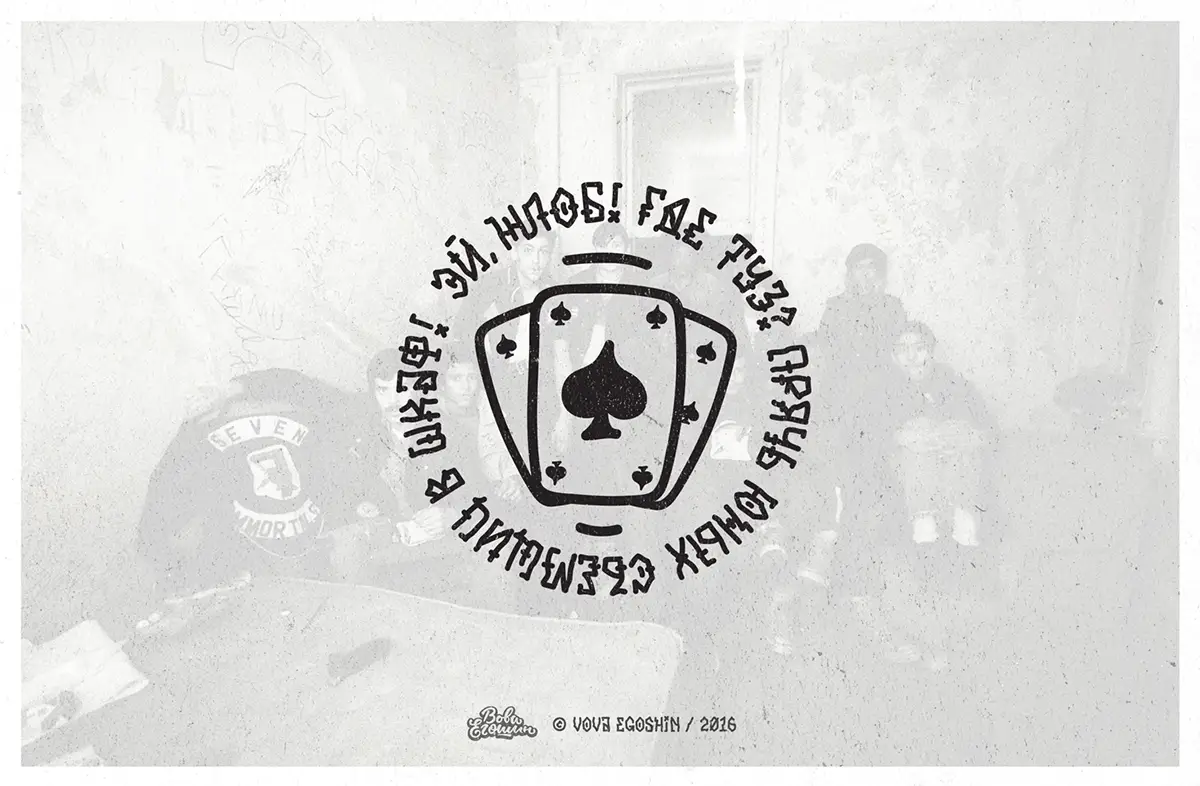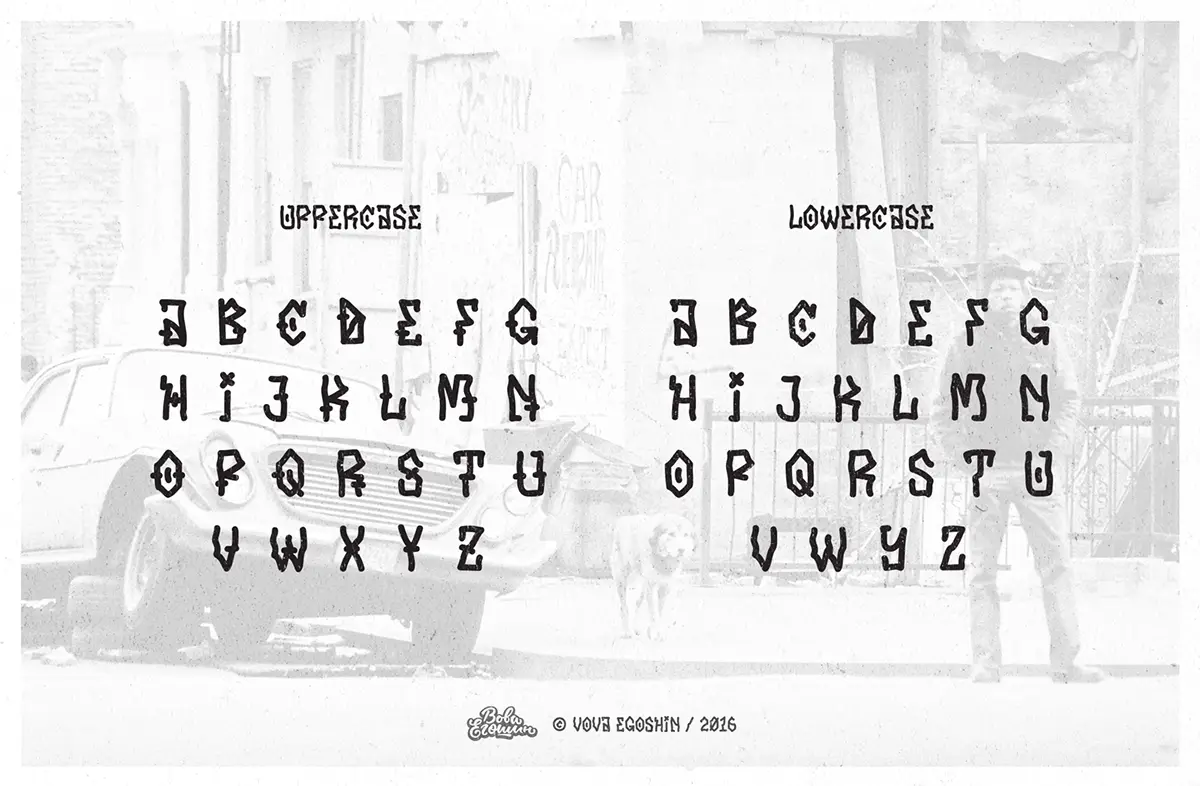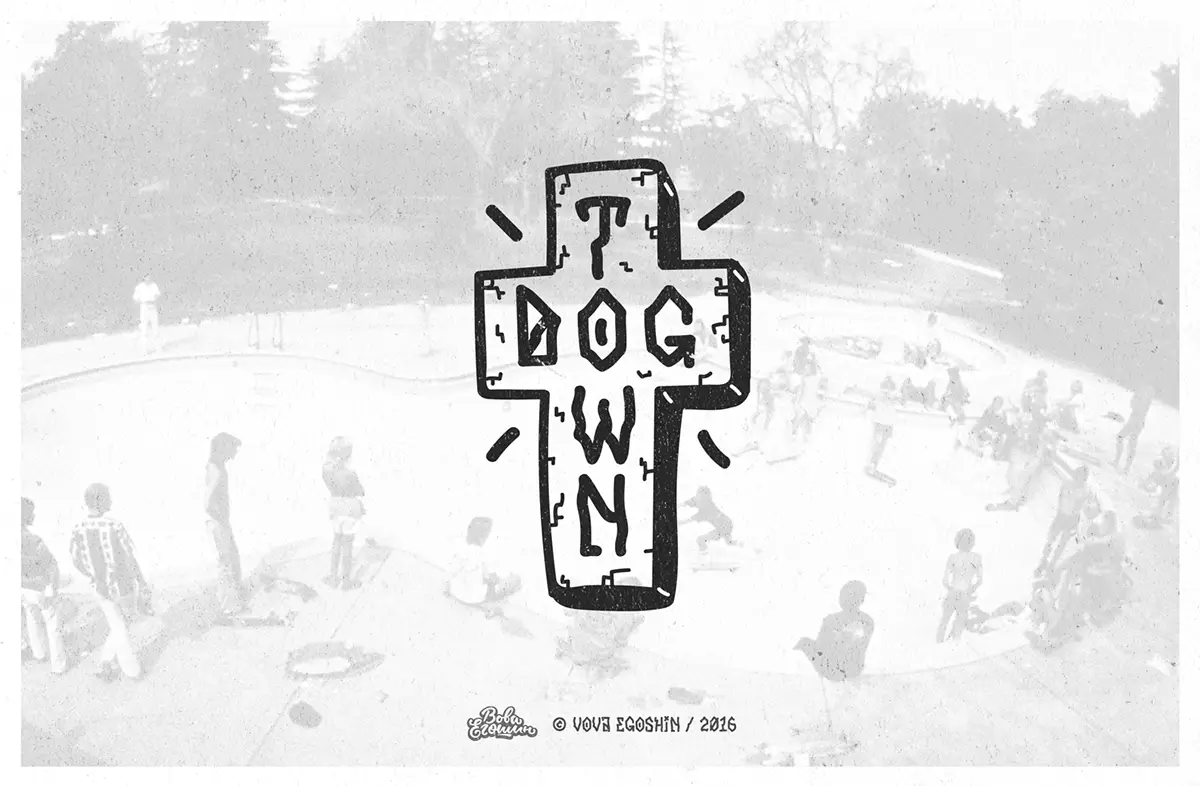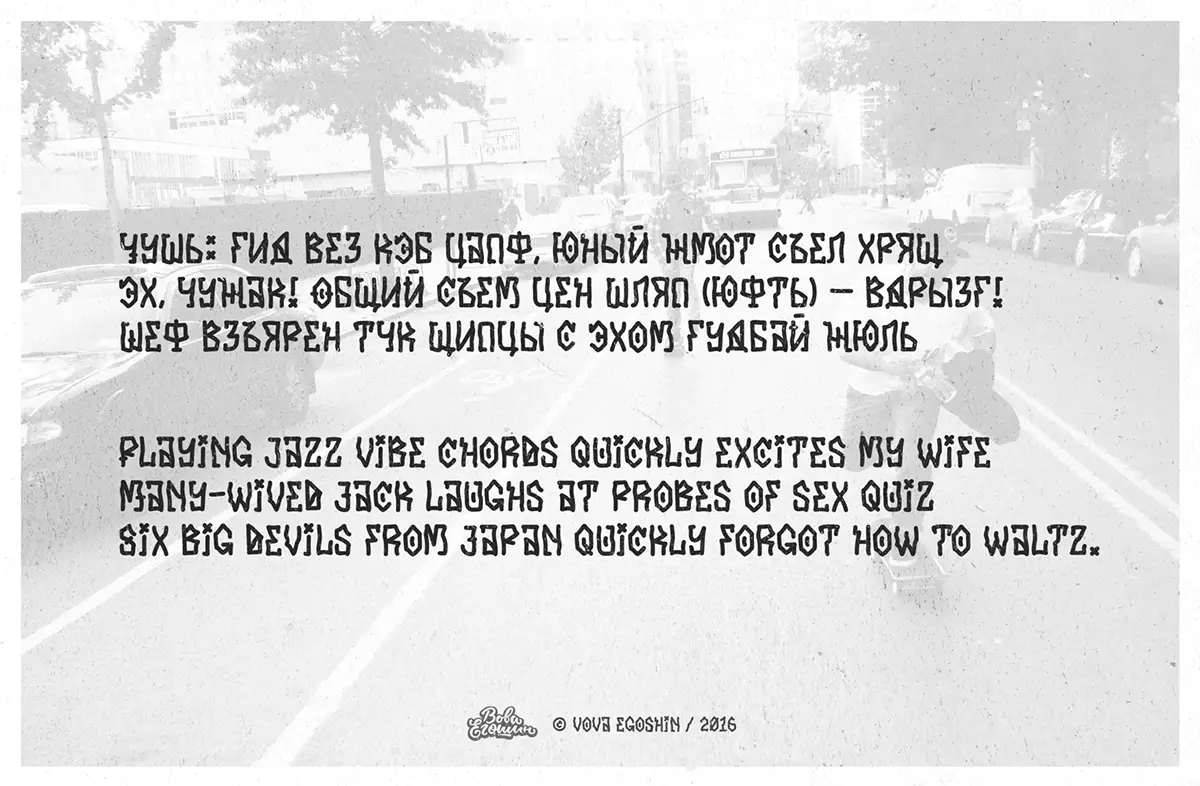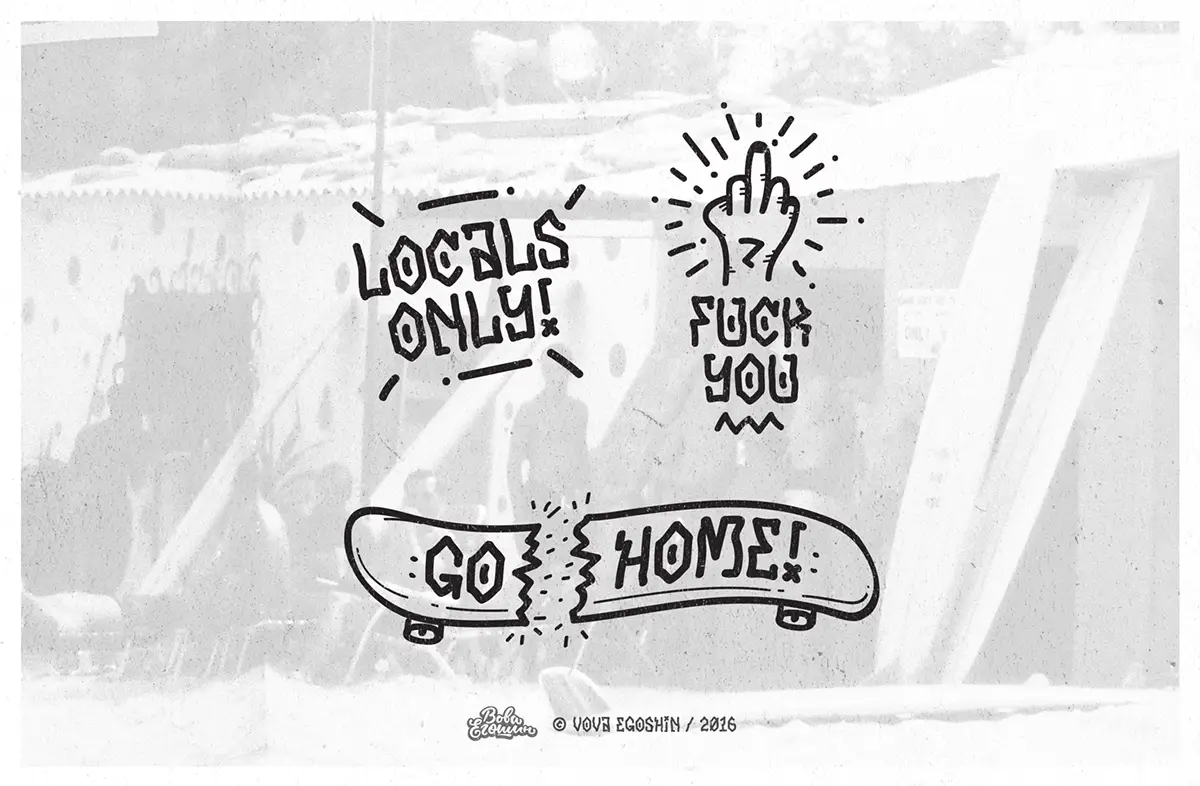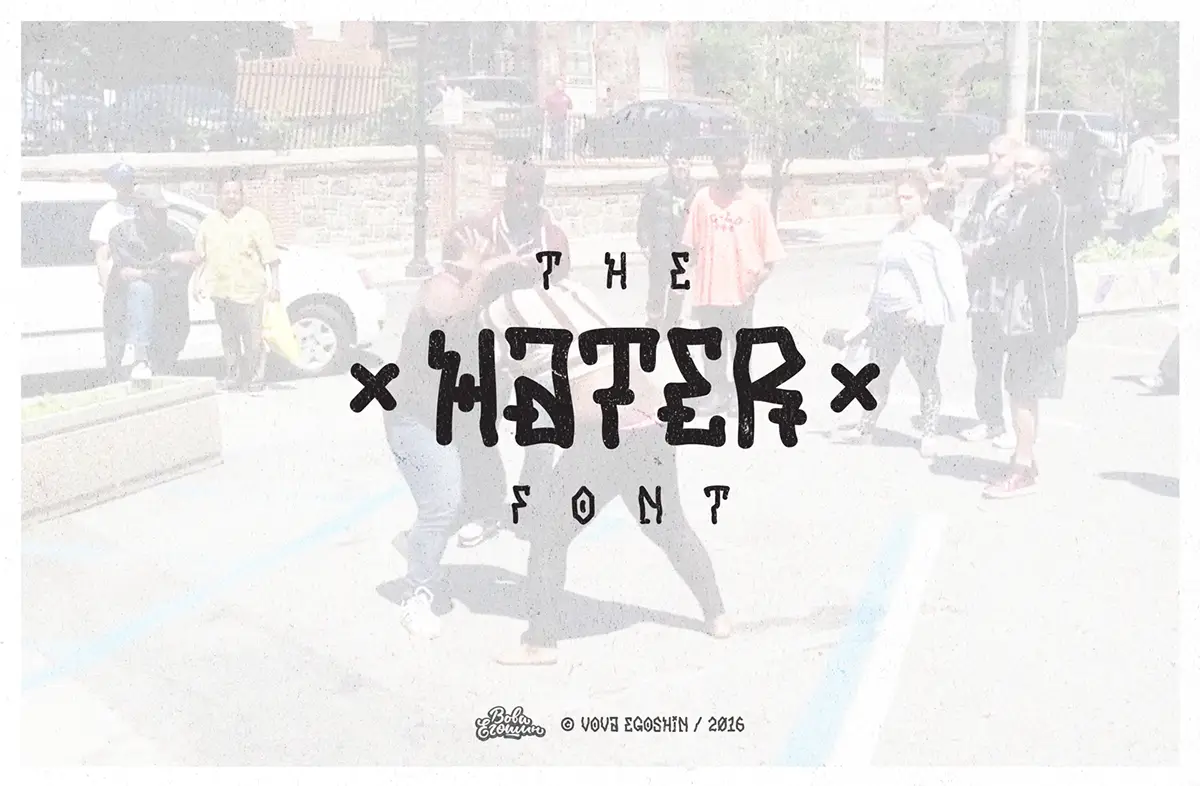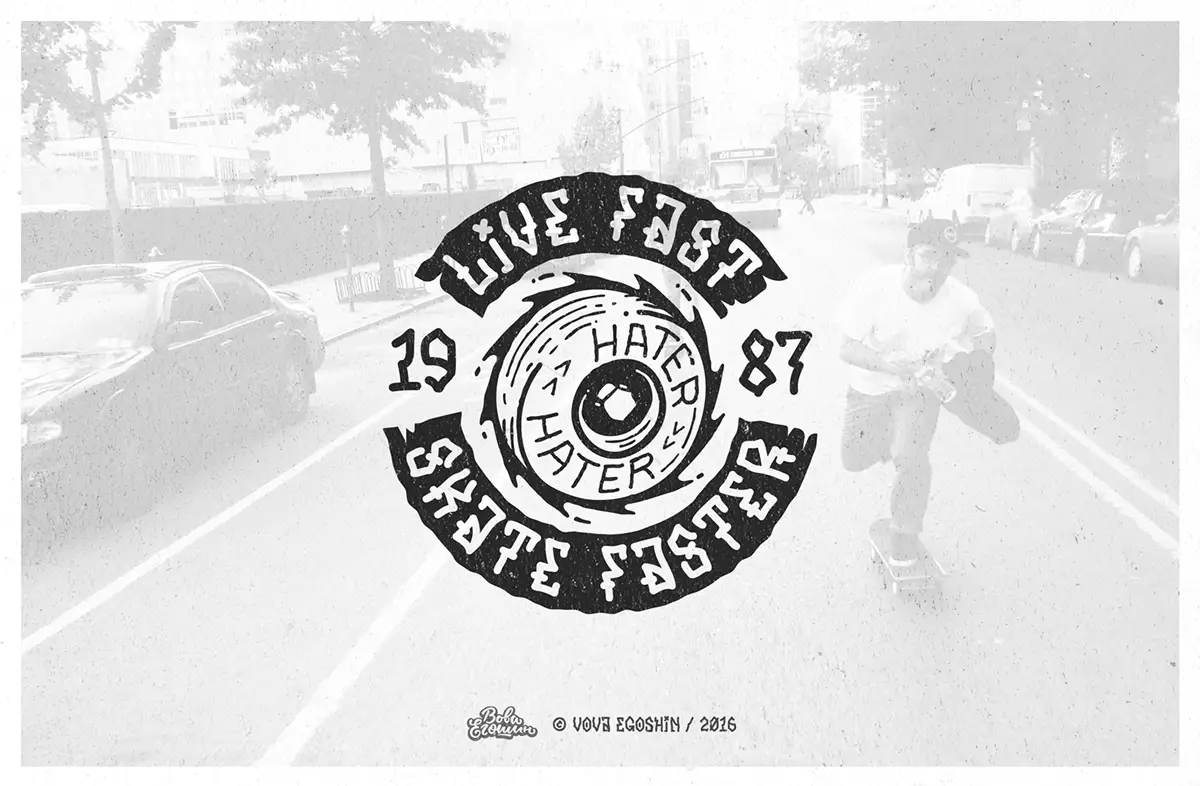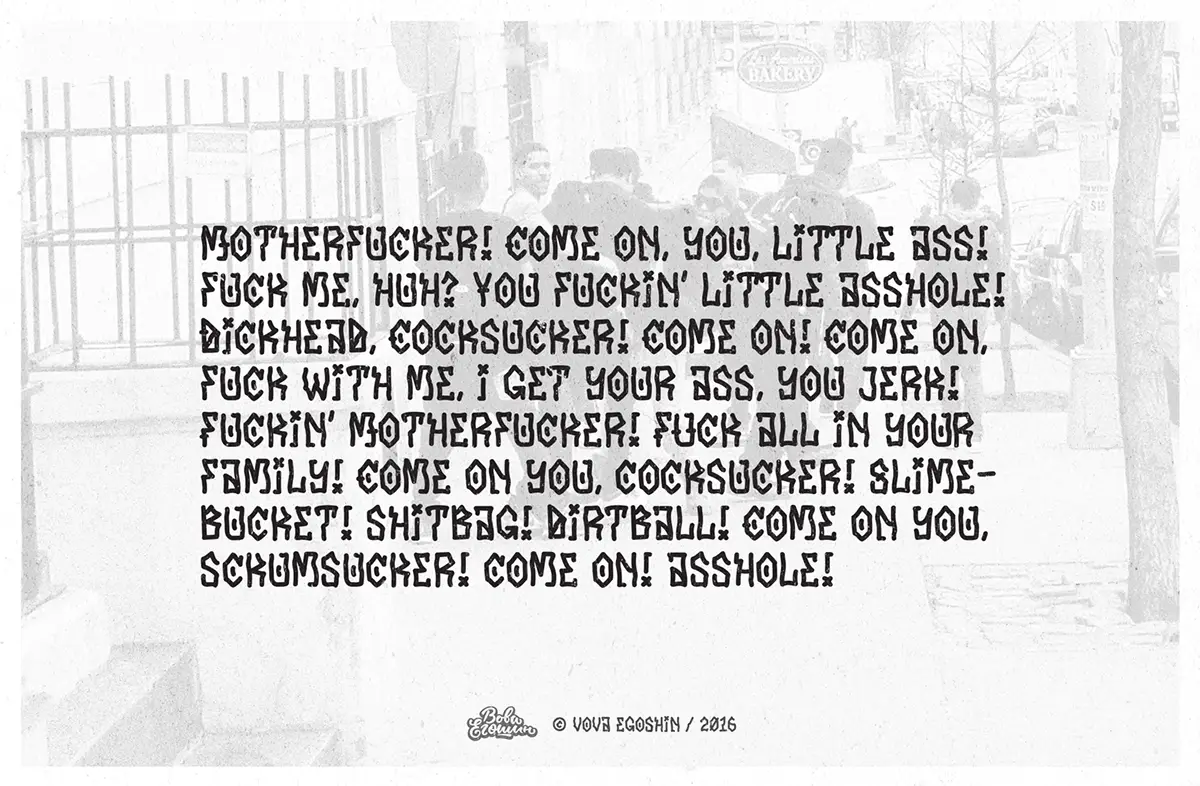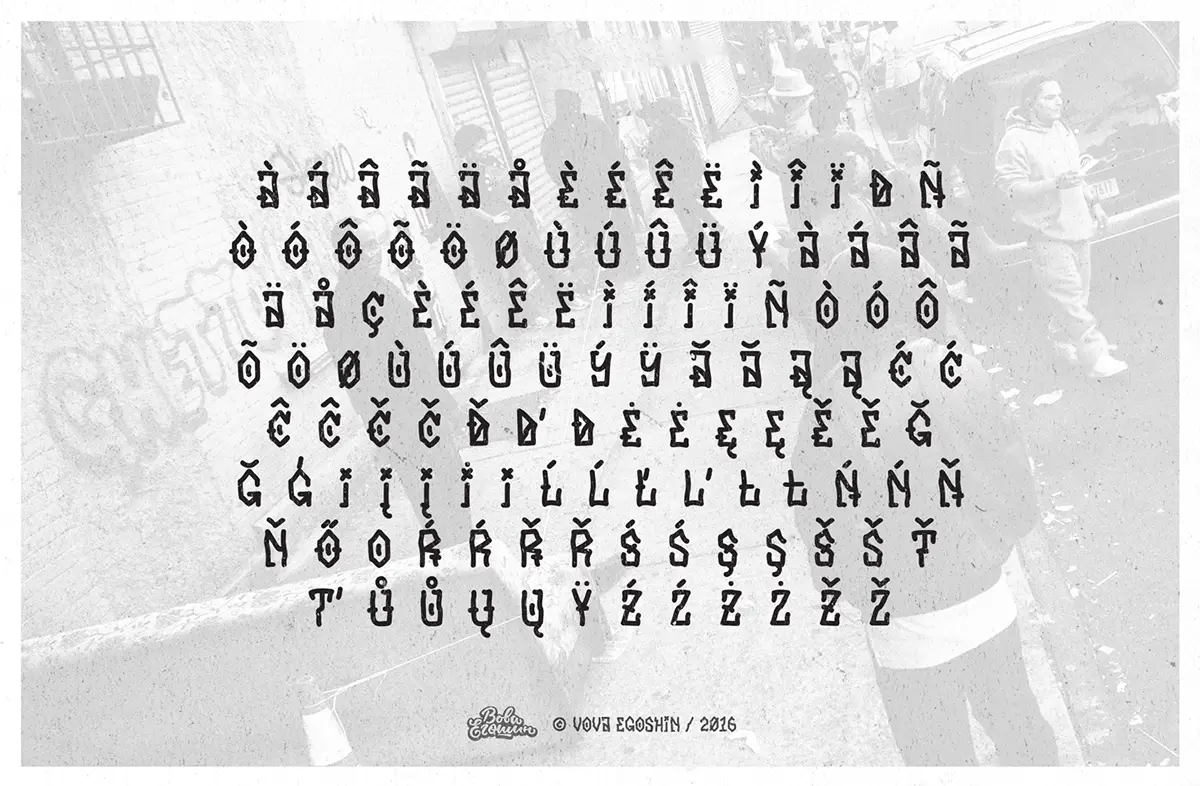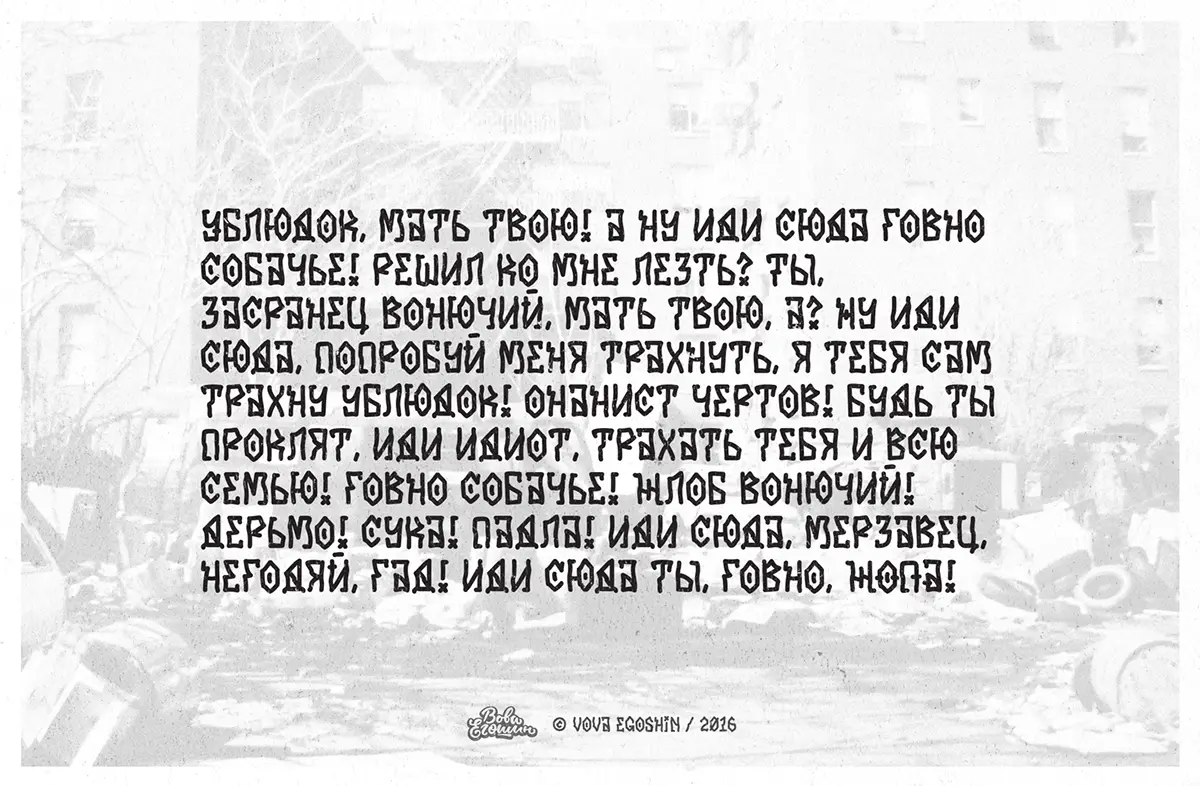
The Hater Font is a bold and expressive typeface designed to make a statement. With its unique character shapes and strong presence, this font is perfect for branding, logos, and eye-catching headlines.
- Ideal for use in branding projects, promotional materials, and digital content.
- Consider pairing with a clean sans-serif font for a balanced design.